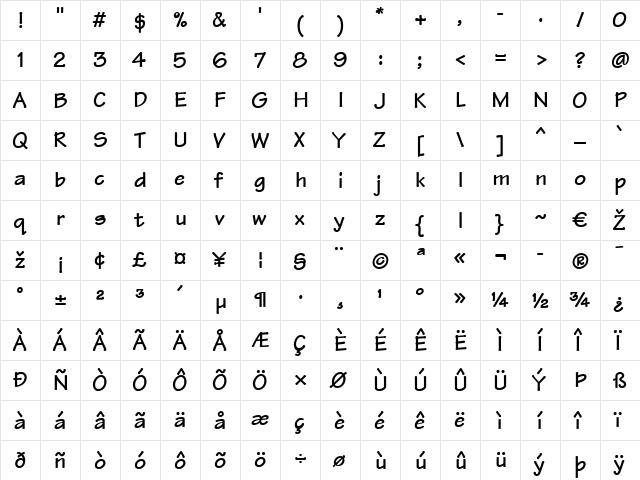
Tekton LT Bold Regular
Design Context for Tekton LT Bold Typeface
Tekton LT Bold offers clean, dependable letterforms without strong stylistic allegiance, making it a practical choice for designers who need flexibility. The heavy weight commands attention and anchors typographic hierarchies.